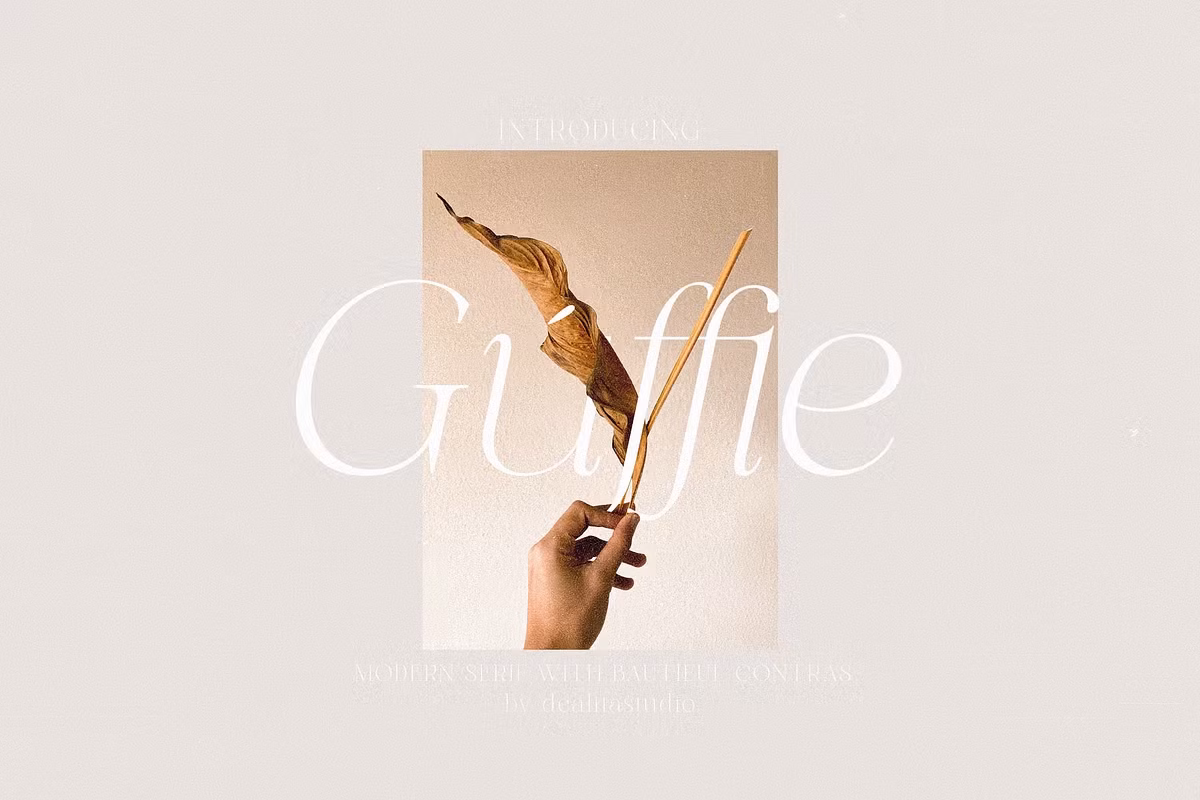
Guffie - Modern Serif Free Download
Guffie Font - Modern Serif Free Download
Guffie Font - Modern Serif Free Download is a sophisticated and contemporary serif typeface that combines classic elegance with a modern twist. Its clean lines, balanced proportions, and sleek details make it perfect for a wide range of design projects, including branding, editorial layouts, fashion design, and high-end marketing materials.
Guffie’s timeless serif structure ensures excellent readability while adding a touch of refinement and style to your typography. Whether you're creating a logo, designing a website, or working on premium product packaging, Guffie offers both clarity and visual appeal.